Print samples: Sample of printed matter in the Alpha typeface published by the Flinsch foundry, Frankfurt am Main, designed by M. Kaláb. — Ball invitation, 3-colour, from the practice of Alois Chvála, printed by the Dělnická knihtiskárna. — Dance programme, 3-colour, after the design of Fr. Císař, printed by the Dělnická knihtiskárna. — Ball invitation, 2-colour, after the design of Al. Rieger, printed by the Dělnická knihtiskárna. — Masquerade wine invitation, 2-colour, from the practice of Al. Chvála, printed by the Dělnická knihtiskárna. — Woodcut (original) from the cycle Žena by Fr. Kobliha, academic painter, printed by the Dělnická knihtiskárna. — Letterhead, 1-colour, from the practice of Al. Chvála, printed by the Workers’ Printing House, Prague.
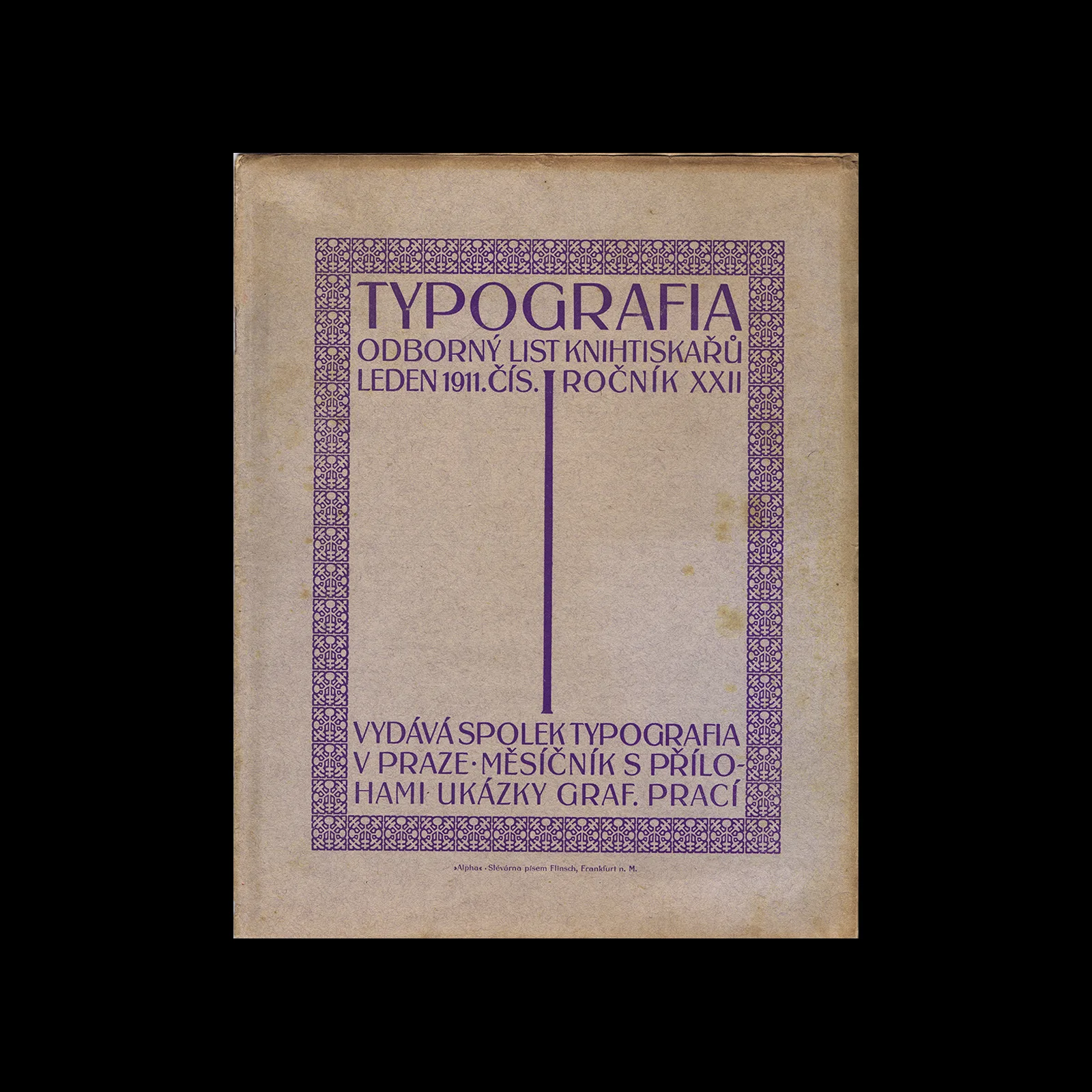
60 examples of Czech typography from Typografia Vol. 22 (1911). Czech commercial printing at the crossroads of Art Nouveau and early modernism, with work by Methoděj Kaláb, Alois Chvála, V. H. Brunner and many more.